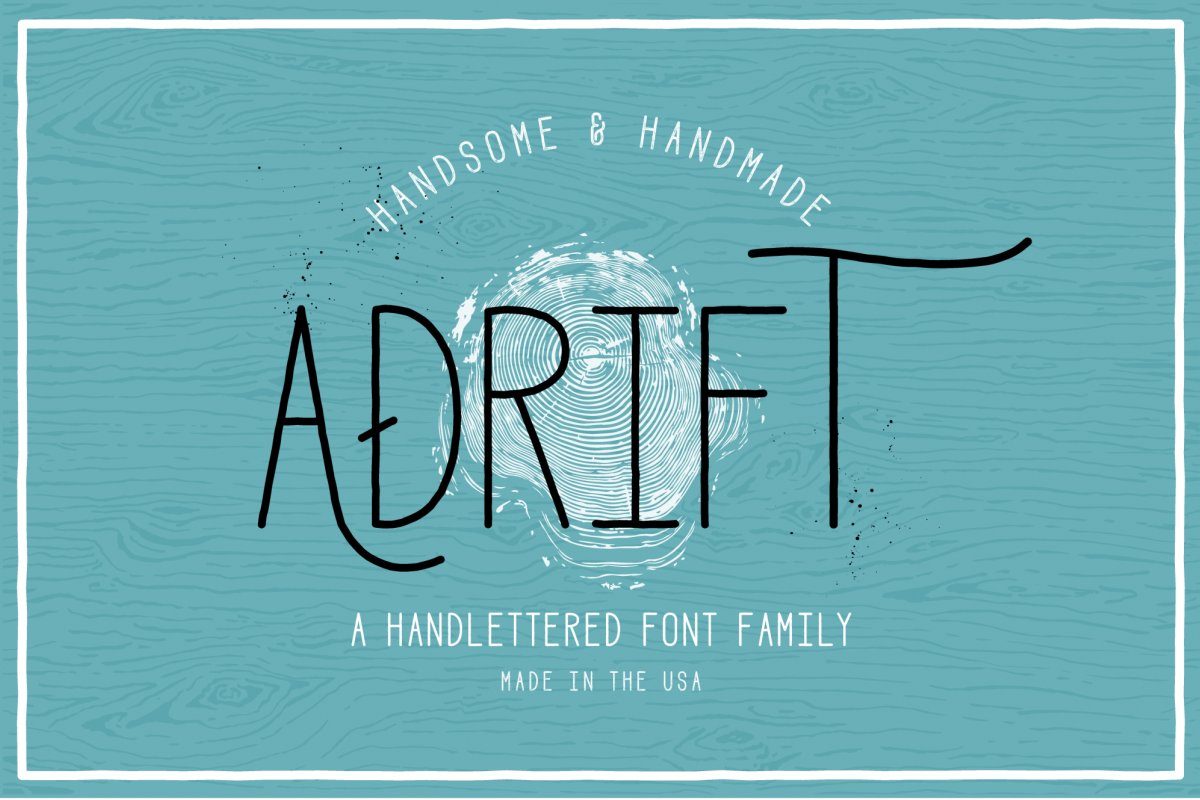
Adrift Font
ADRIFT is a handsomely hand-lettered font family inspired by the hopeless wanderer inside of all of us. It includes 4 weights (regular, medium, bold, and shortened). Each of these come in otf, ttf, and a webfont. This sans serif is perfect for logos, typography, prints, and t's. Keep it classic or add some flair to your project with one of the 17 alternate letters included!